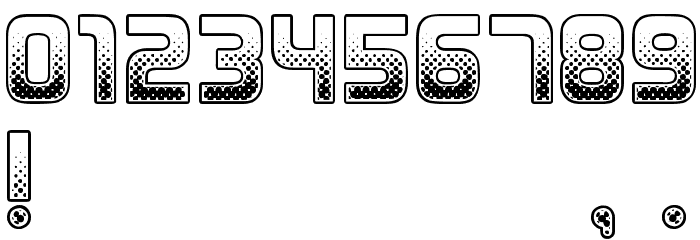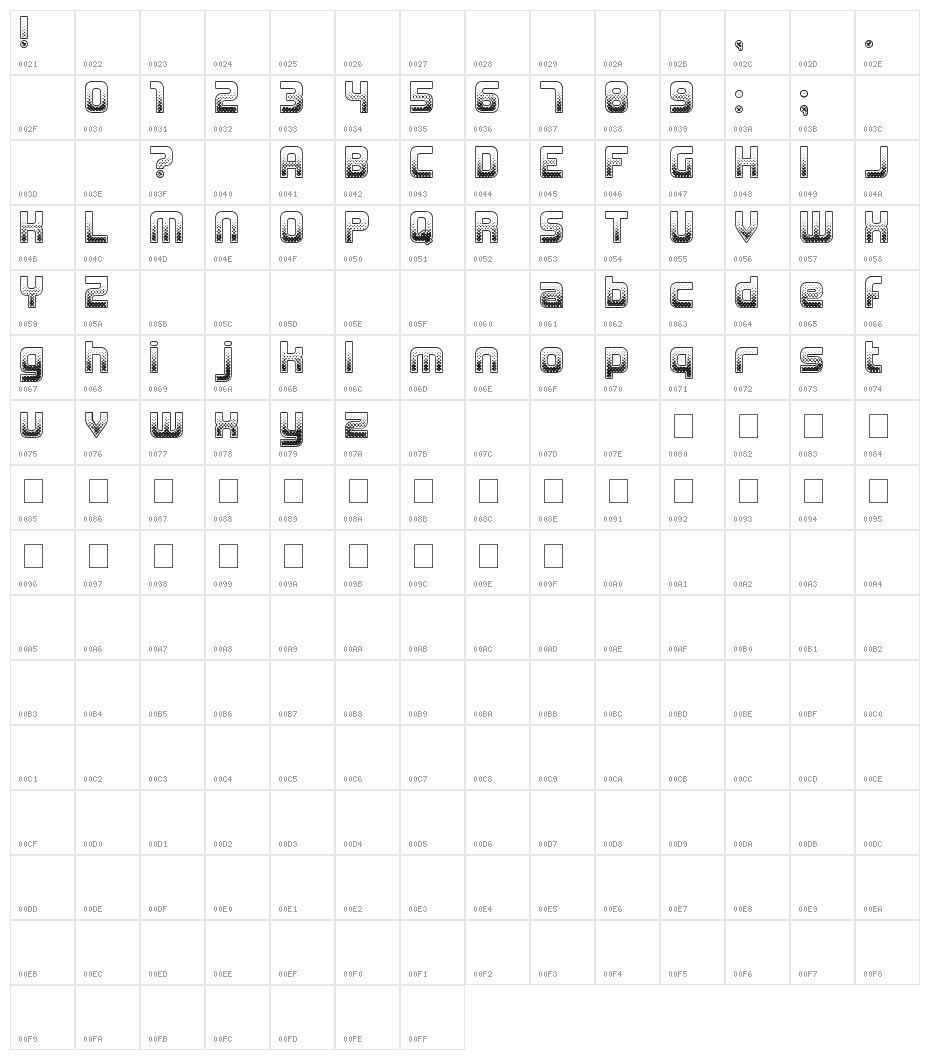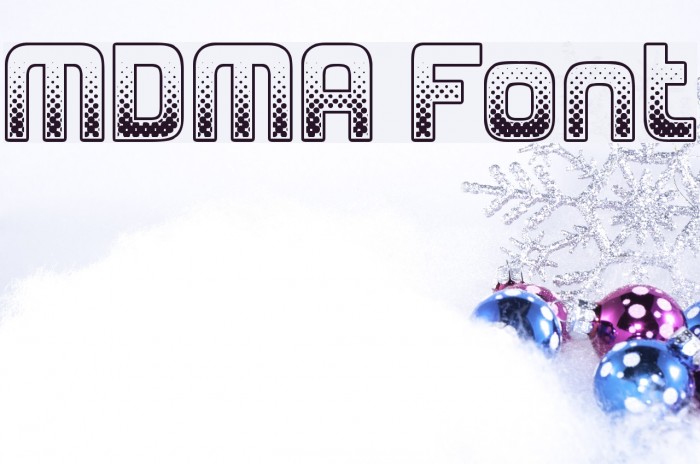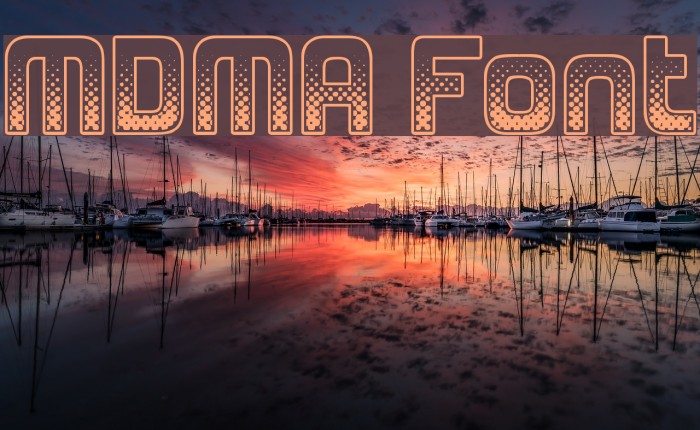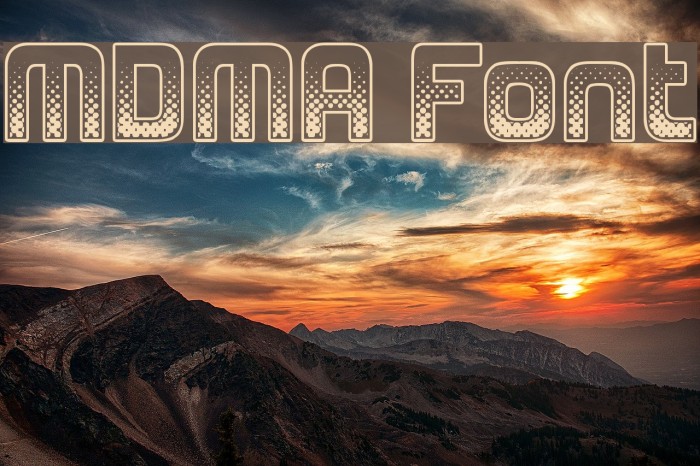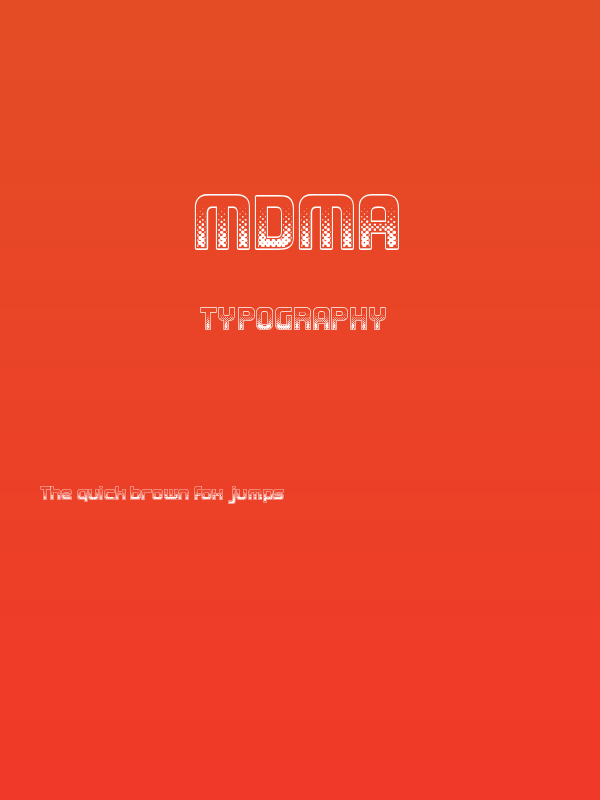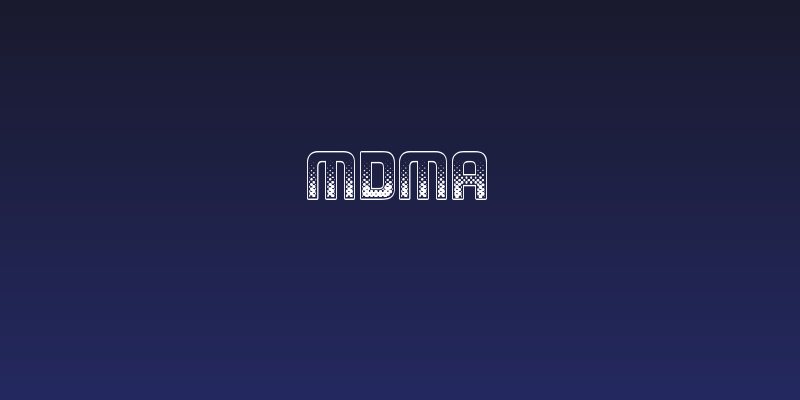
MDMA Font
MDMA Description
This font features a bold, decorative style with a unique dotted pattern filling each character. The uppercase and lowercase letters, along with numbers and special characters, maintain a consistent design that combines a modern aesthetic with a playful touch. The letters are outlined with a solid black line, enhancing their visibility and adding a layer of depth. The dotted pattern inside the characters creates a textured effect, making the font stand out. This design is particularly eye-catching and suitable for projects that require a fun and engaging visual element.
MDMA UPPERCASE
MDMA LOWERCASE
MDMA OTHER CHARS